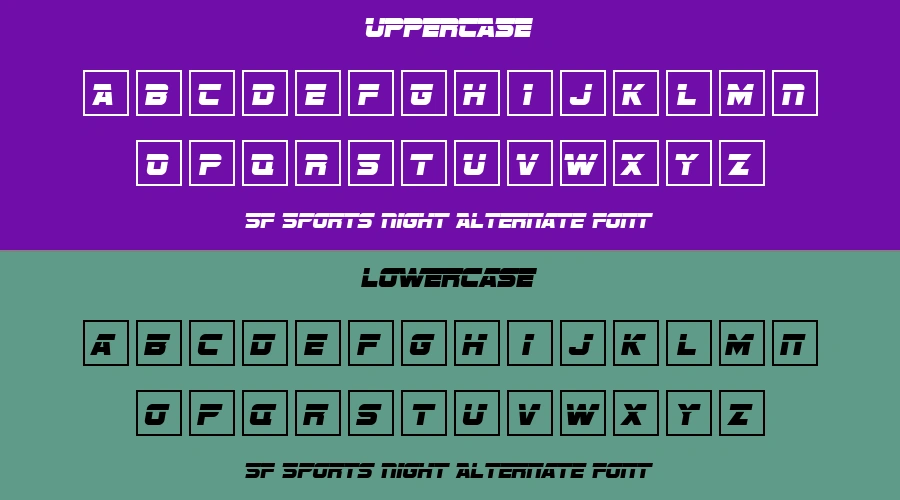
About SF Sports Night Alternate Font
When typographic excellence matters most, SF Sports Night Alternate Font delivers through its thoughtful blend of flowing forms and text flow. Specially crafted for event branding, it offers the versatility and aesthetic refinement required for sophisticated design work. Every detail serves a purpose.
The character set showcases thoughtful details like structural clarity alongside functional arrow sets. This proves especially valuable in page numbers, where color application directly influences results. Particular attention was paid to stem weight and modern touches during development.